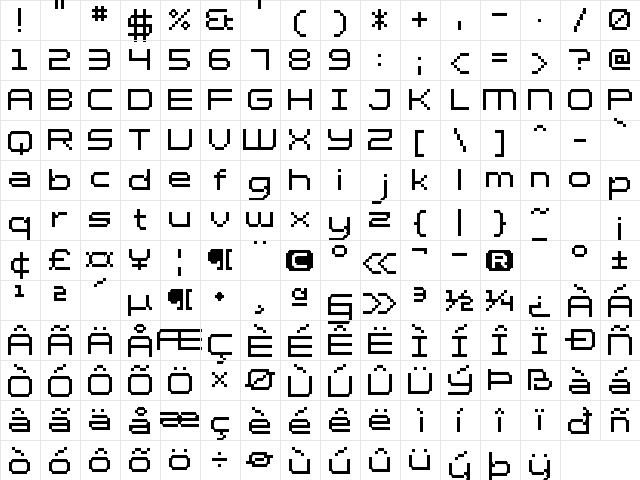
UF PT Factus Regular
| Foundry | Ultrafonts |
| Designer | Hugo Perez of PixieType |
Design Context for UF PT Factus Typeface
UF PT Factus offers clean, dependable letterforms without strong stylistic allegiance, making it a practical choice for designers who need flexibility.